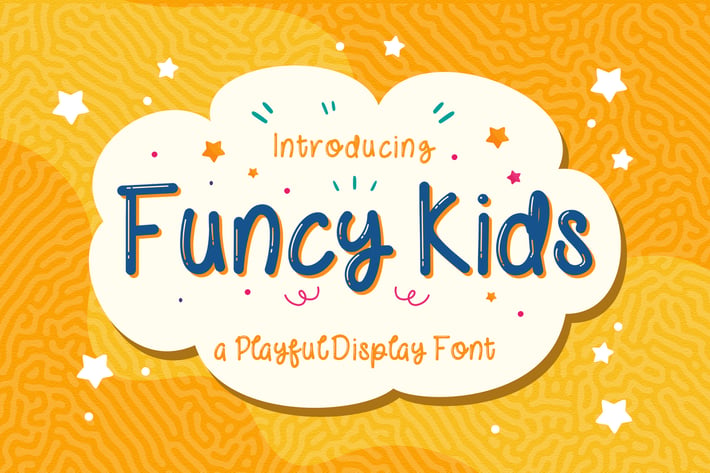
Funcy Kids! - Playful Display Font
Introducing Funcy Kids! - Playful Display Font
Introducing Funcy Kids!, a fun children playful display font. Are you looking for a new and playful font for children? Try this font for casual children related projects.